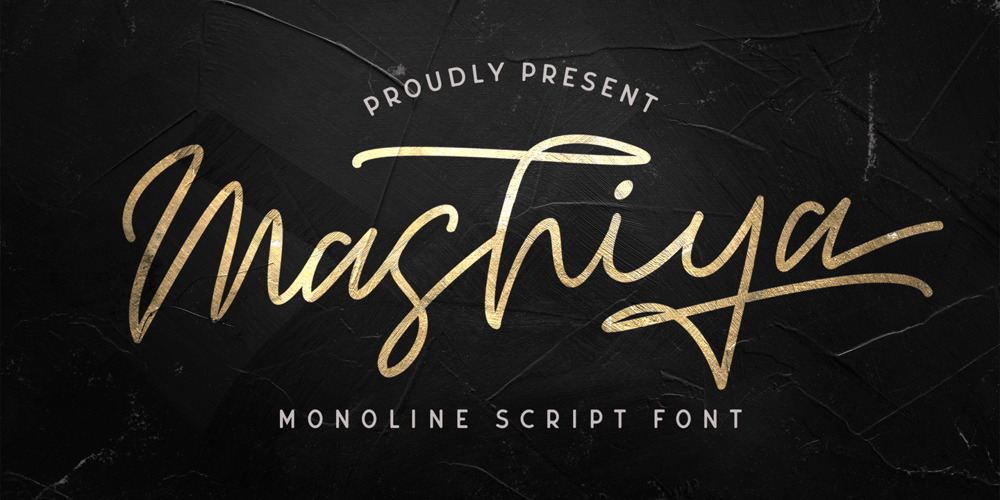
Mashiya Font Family was designed by Virgiawan Listanto and published by Stringlabs Creative Studio. Mashiya contains 1 styles and family package options. Mashiya is a Monoline Script Font with elegant style. This font is perfect for fashion brand, apparel, shoes company, wedding invitation, business card, logo brand, clothing, and also business brand name like barber shop or taylor.